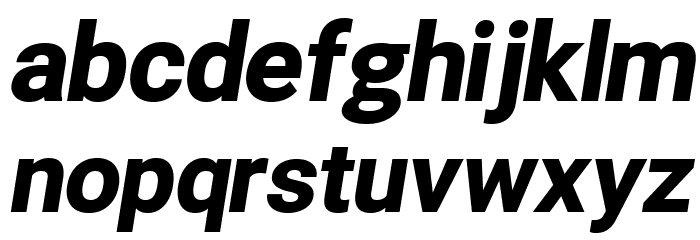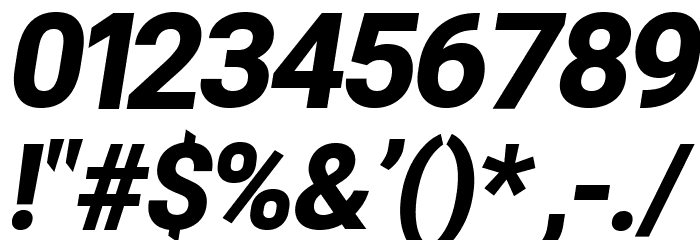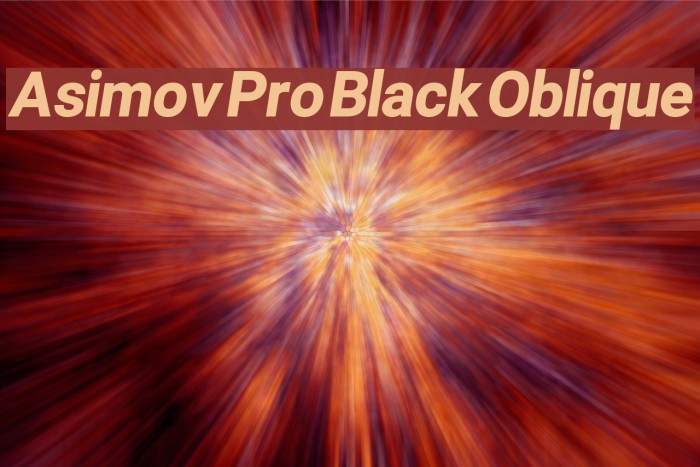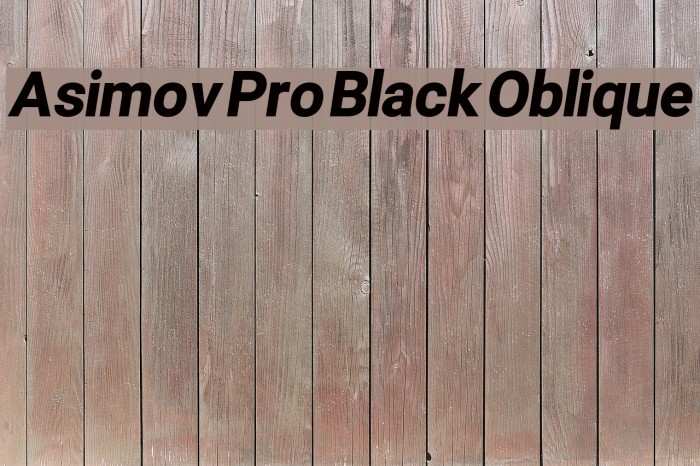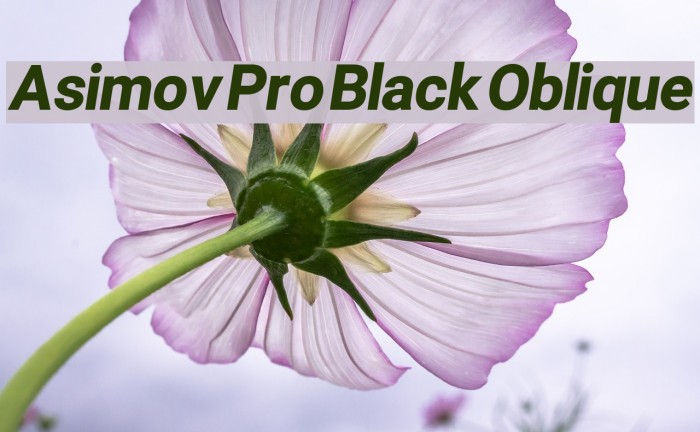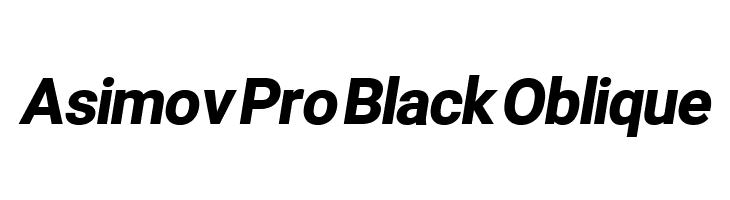
Asimov Pro Black Oblique Font
This font features a bold and oblique style, characterized by its strong and assertive presence. The letters are thick and slightly slanted, giving a dynamic and modern feel. The uppercase and lowercase letters maintain a consistent weight, ensuring readability and impact. The numerals are equally bold, matching the overall aesthetic. Special characters are designed with the same boldness, ensuring uniformity across all glyphs. The font's design is clean and straightforward, making it suitable for a variety of applications where a strong visual statement is needed.
A bold, oblique font with a modern and dynamic style.
- Proposed Projects: Ideal for branding, advertising, headlines, and any project requiring a strong visual impact.
- Use Case: Headlines, Logos, Branding